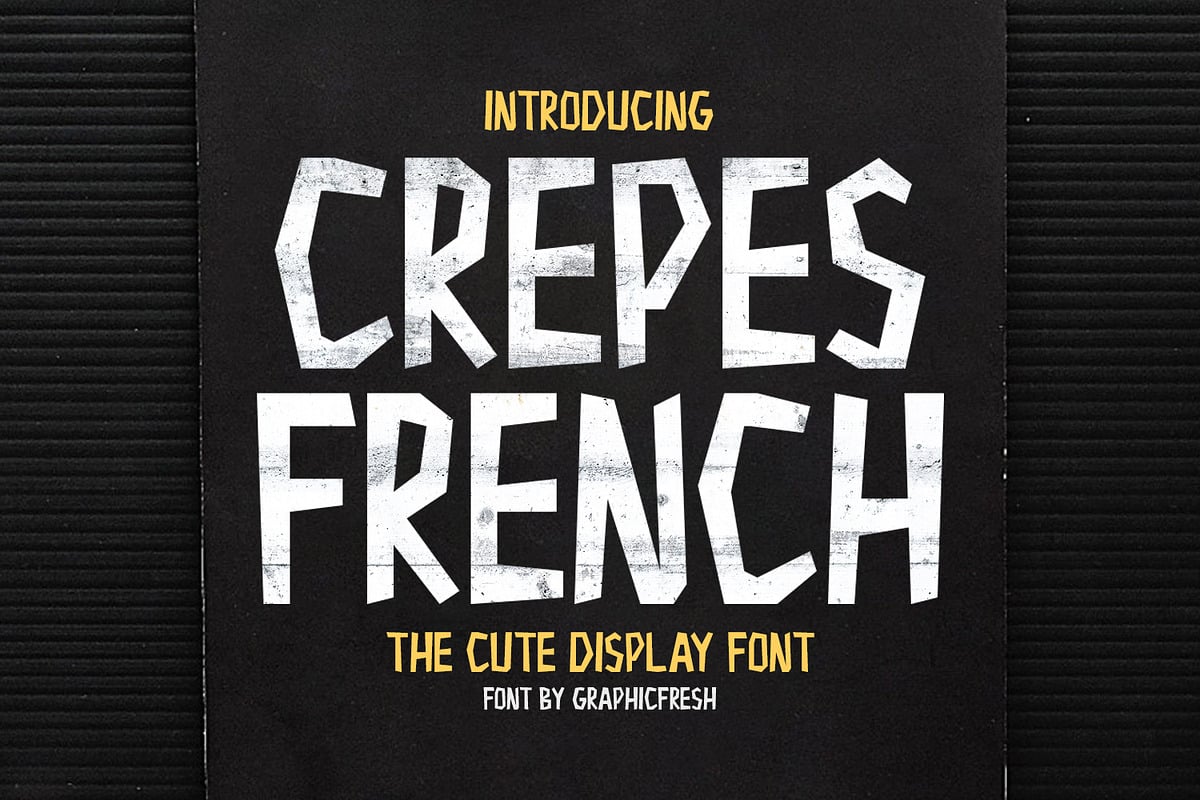
Crepes - The Cute Display Font
Meet Crepes — the charming, distressed display font with hand-inked character that makes every design pop.
Crepes is a fun and expressive typeface built for designers who want personality in their projects. Inspired by the texture of real ink strokes, it brings a playful yet bold energy to any layout. Named after the beloved French dish, it carries a warmth and charm that feels both artisanal and eye-catching.
Whether you're designing logos, name cards, magazine headers, invitations, or large-scale artwork, Crepes delivers impact with a handcrafted touch. Its quirky letterforms work beautifully at display sizes, making it a go-to choice when you need type with real character.